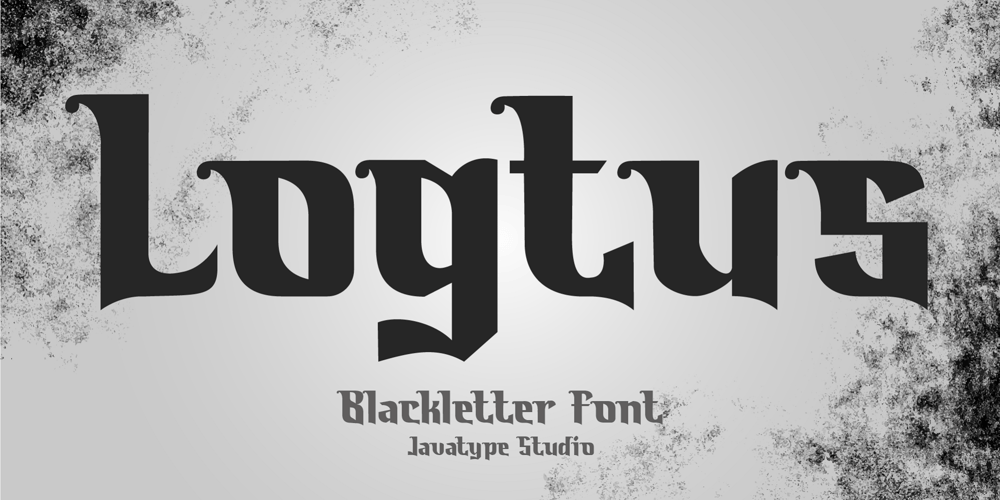
Logtus
Logtus font
Logtus Font Family was designed by Tio Yulianto and published by Javatypestd. Logtus contains 1 styles and family package options. Logtus a Modern Blackletter Font is a type of blackletter font made in a classic, elegant and modern style. by combining uniqueness and beauty for various needs.